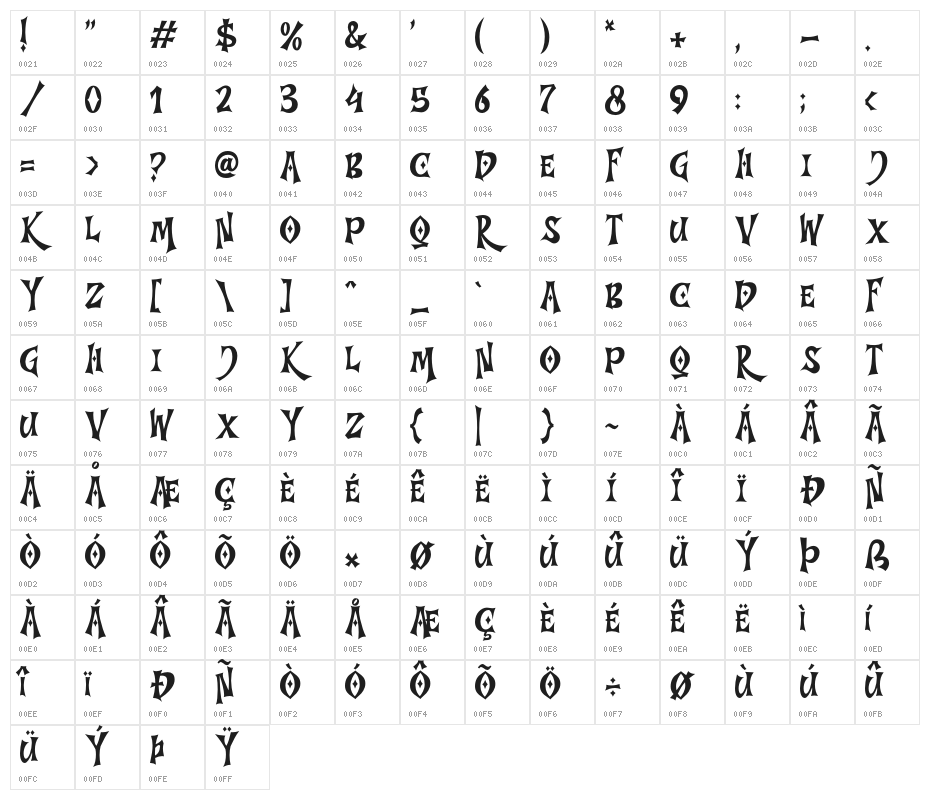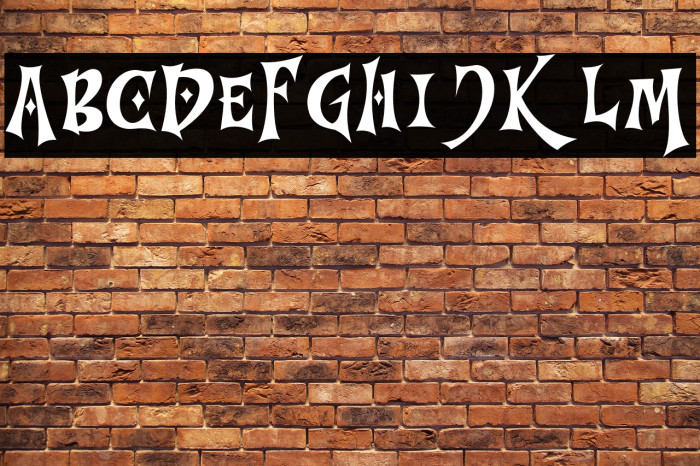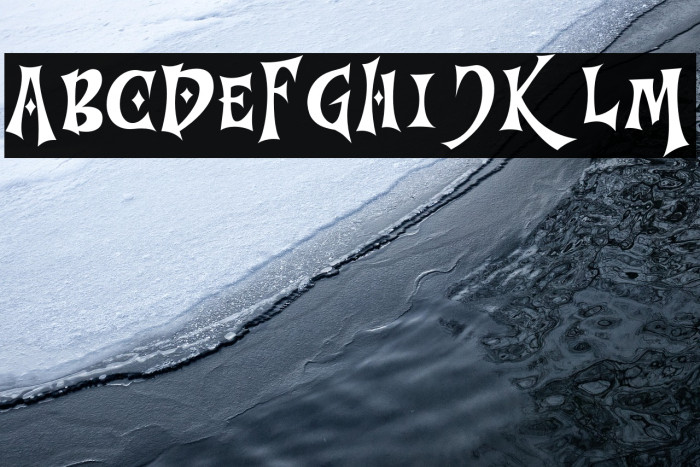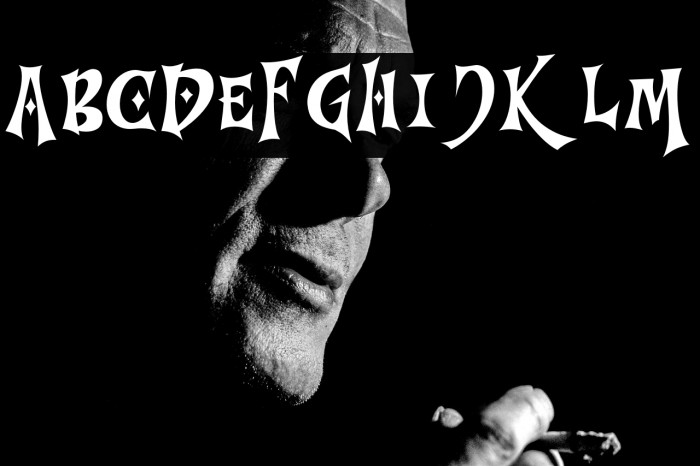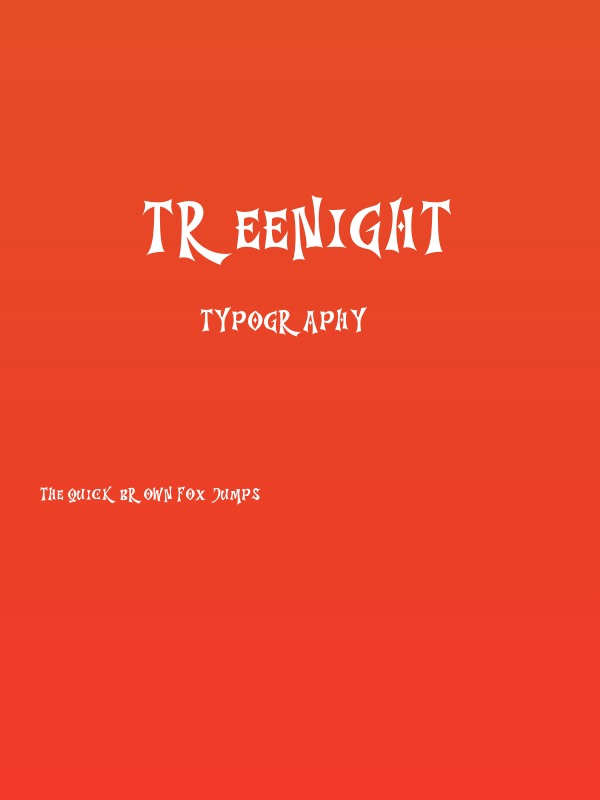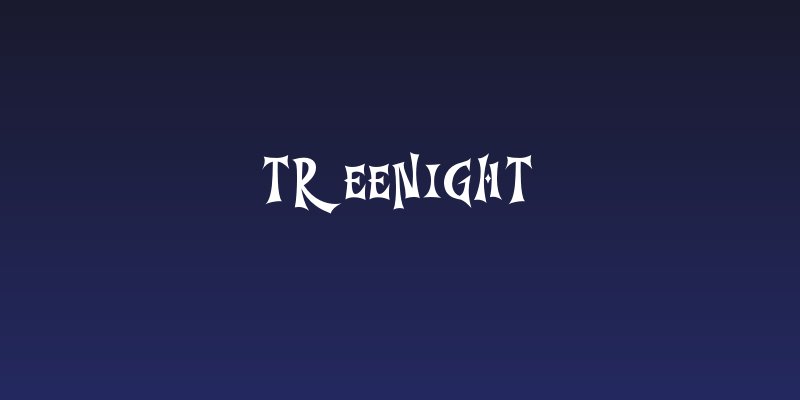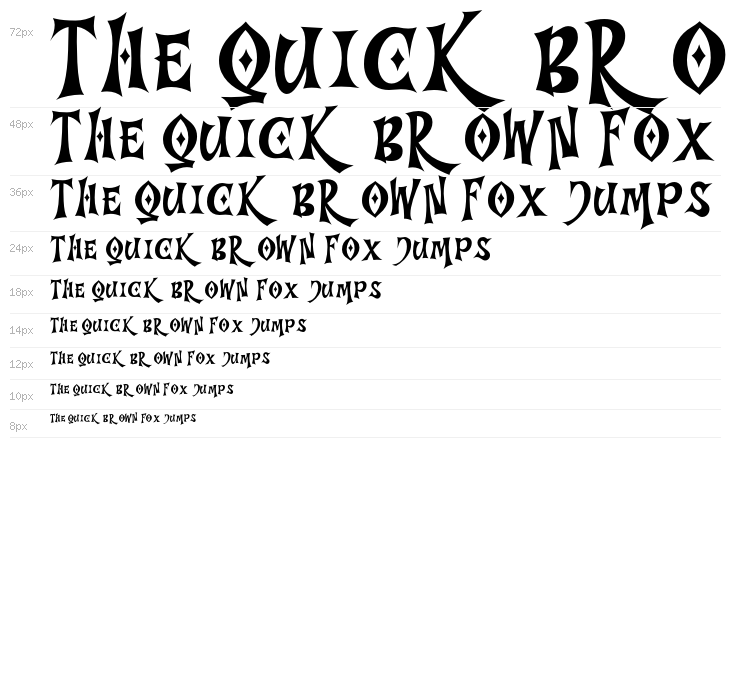
TreeNight Font
TreeNight Description
This font features a bold and dramatic style with sharp, angular lines and a distinct medieval flair. The uppercase letters are particularly striking, with exaggerated serifs and unique, pointed elements that give them a gothic appearance. The lowercase letters maintain this theme, though they are slightly more subdued. Numbers and special characters are crafted with the same attention to detail, ensuring a cohesive look across all characters. The font's overall aesthetic is reminiscent of ancient scripts, making it ideal for projects that require a touch of historical or fantasy elements.
| Overall Style | Gothic, Medieval, Decorative |
| Proposed Projects | Ideal for fantasy book covers, medieval-themed event posters, and video game graphics. |